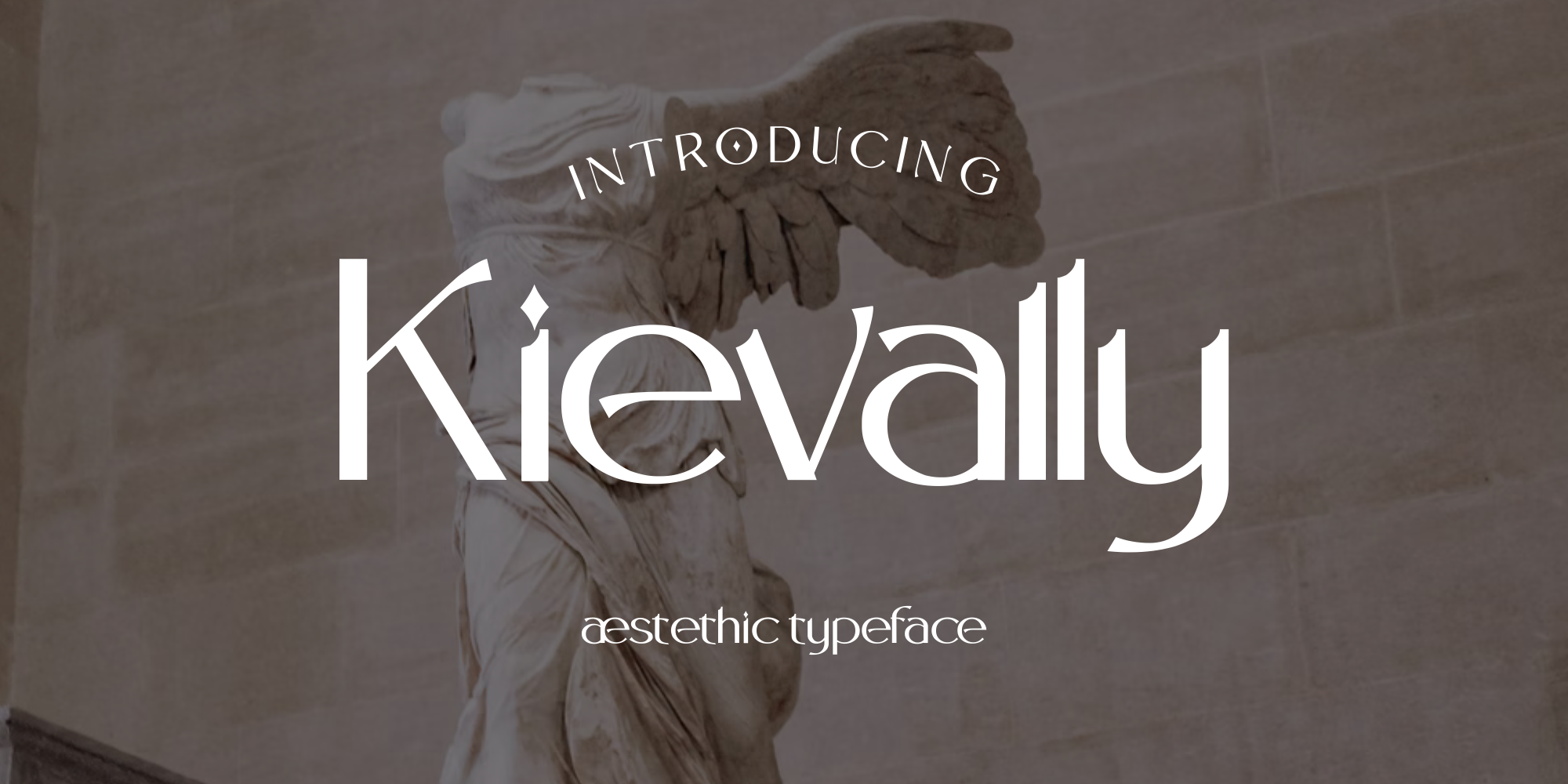
This distinctive typeface excels in various cultural and creative applications including Eastern European restaurant branding, folk art exhibitions, cultural festival posters, artisanal bakery logos, heritage tourism materials, traditional craft packaging, world music album covers, and international cuisine menus. The Kievally Font beautifully captures the rich heritage of Eastern European design traditions while maintaining contemporary appeal through its unique character forms and cultural authenticity.
What makes this font truly exciting is its masterful blend of traditional Slavic calligraphic influences with modern typographic sensibilities, creating letters that tell stories of cultural heritage. The carefully crafted characters feature distinctive flourishes and organic curves that evoke the warmth of handcrafted traditions while maintaining professional polish. Its distinctive personality combines old-world charm with contemporary functionality, making every word feel like a celebration of cultural identity.
The Kievally Font family includes thoughtfully designed variations: Regular, Bold, Light, and Decorative styles, plus alternate characters and cultural ornaments. Each family member preserves the signature cultural character while offering flexibility for creating authentic designs that honor tradition while embracing modernity.